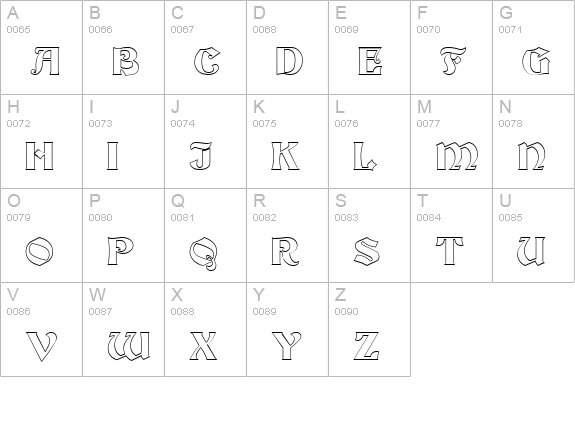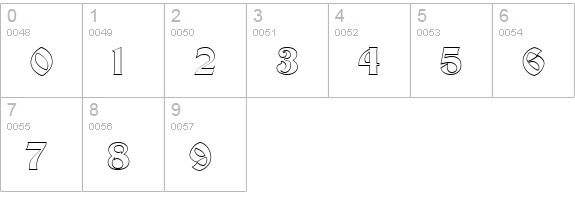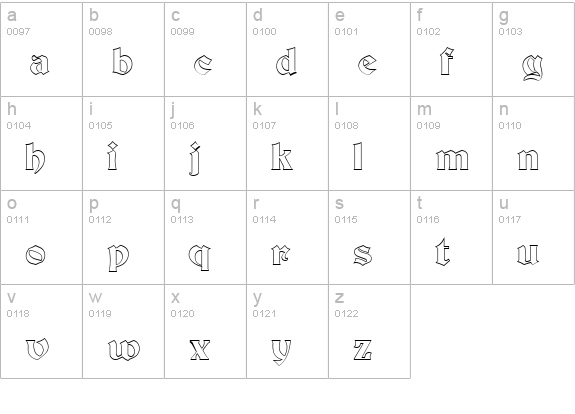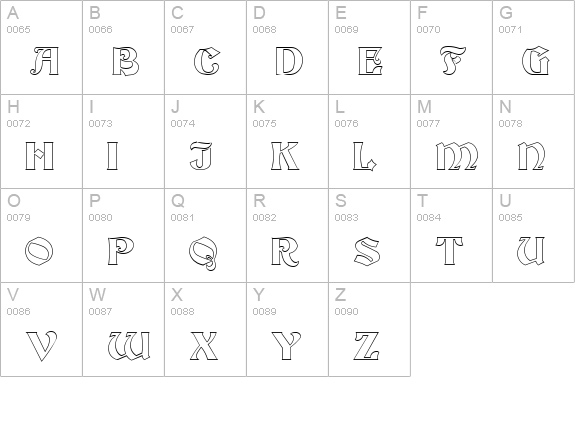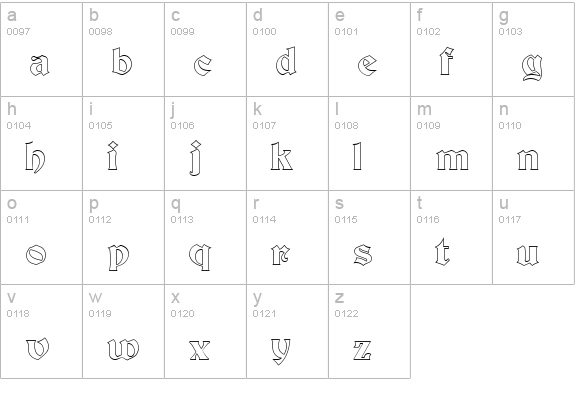
Brandywine-Hollow Normal is the standard, neutral variant in the Brandywine typeface family \xE2\x80\x94 well suited to general body text, paragraphs, and standard typographic work.
Brandywine-Hollow Normal font is a timeless and elegant typeface that exudes sophistication and charm. Its smooth curves and classic design make it perfect for a wide range of projects, from branding to invitations. The versatility of Brandywine-Hollow Normal font allows it to be used in various contexts, whether for formal or casual purposes. The best part is, Brandywine-Hollow Normal font is completely free to download at FontsMarket.com. This means you can add a touch of class to your designs without any additional cost. Don't miss out on this opportunity to elevate your projects with the exquisite Brandywine-Hollow Normal font, available for free at FontsMarket.com.